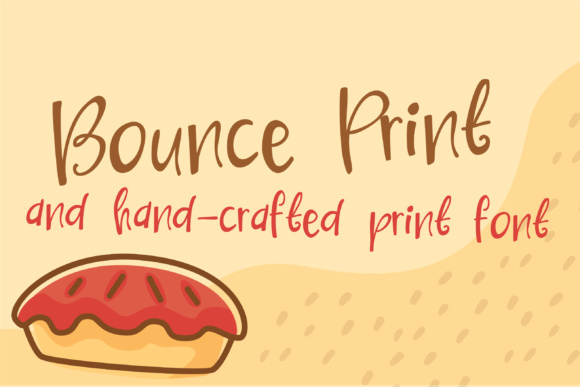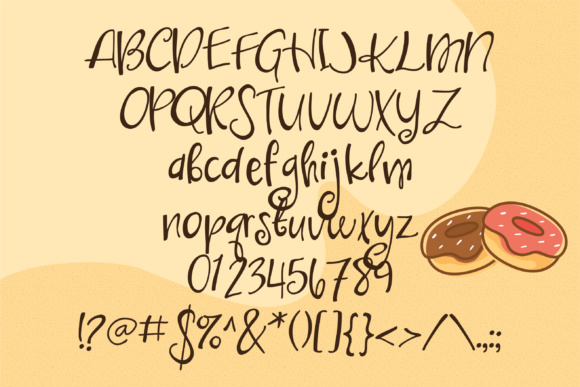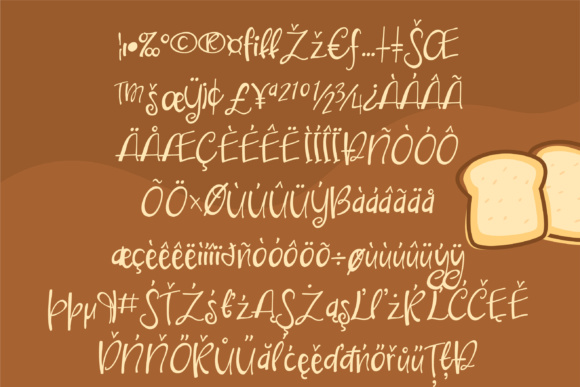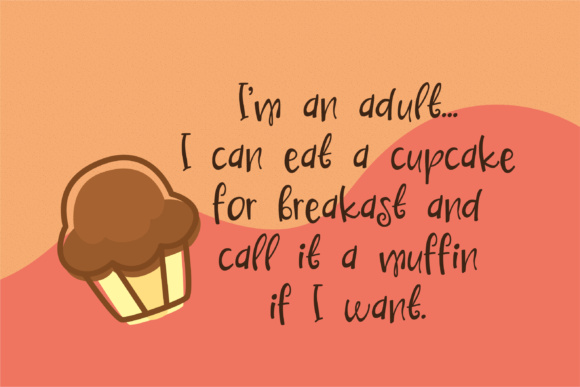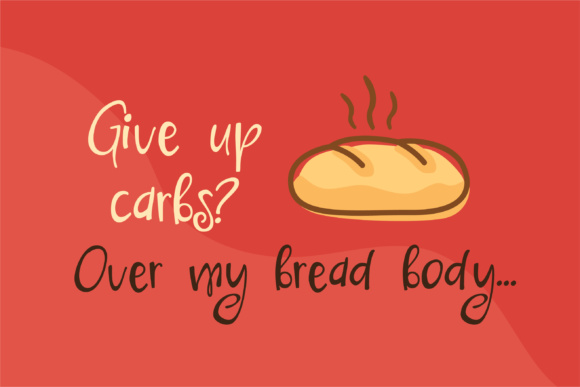
HomeScript FontsBounce Print Font Script Fonts Bounce Print Font FacebookXPinterestWhatsApp Bounce Print Font Poster 2 Bounce Print Font Poster 3 Bounce Print Font Poster 4 Bounce Print Font Poster 5 About Bounce Print Font This casual hand-crafted print font has uniquely long and curly descenders. DOWNLOAD NOW People also explored Willyast Font Bettrish Font Amelia Split Font Mathilda Font Kids Font Le Petit Parisien Light Font Bearline Casual Monoline Script Font Moon Line Font Diary Journal Font 307 0 TagsBounce Print Font Previous articleShoofly FontNext articleSuperlunacy Font LEAVE A REPLY Cancel reply Comment: Please enter your comment! Name:* Please enter your name here Email:* You have entered an incorrect email address! Please enter your email address here Website: Save my name, email, and website in this browser for the next time I comment. Personal Use Free First Be Lucky Personal Use Free Read more about this font William Personal Use Free Read more about this font New System Personal Use Free Read more about this font Zeshane Personal Use Free Read more about this font BLOG Top 10 Handwritten Fonts That Elevate Your Designs Top 10 Handwritten Fonts That Will Elevate Your Designs Handwritten fonts bring a warm, personal touch to every creative project. Whether you're designing logos, invitations,... Exploring Font Trends The 10 Best Handwriting Fonts to Add Personality to Your Designs Elegant Wedding Invitation Fonts – Handwritten & Script Fonts